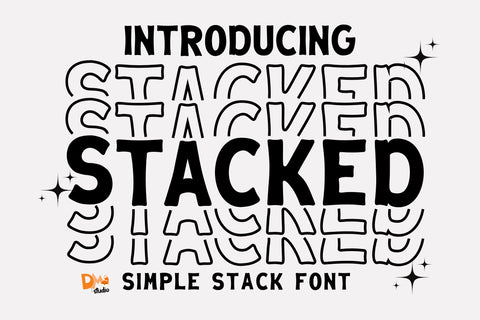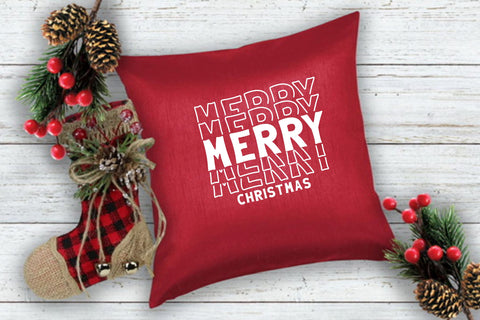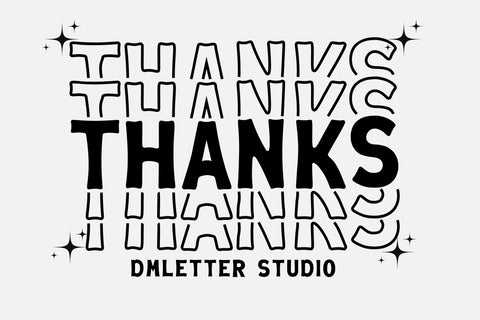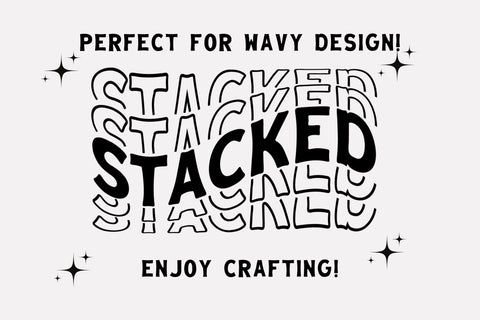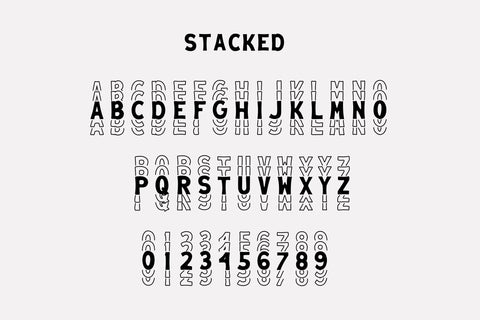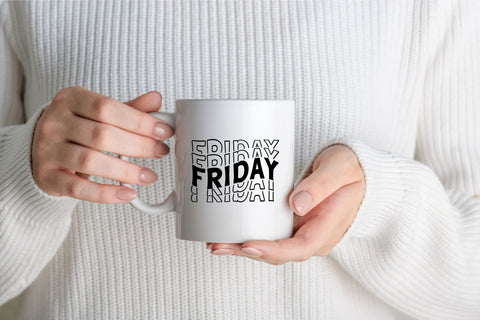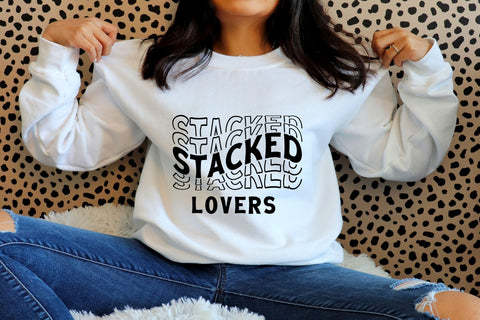
Stacked Font
Stacked Font is a bold, playful, and eye-catching display typeface that brings a fresh and dynamic look to your designs. With its unique stacked lettering style, this font adds depth, fun, and creativity to any project. Ideal for headlines, posters, logos, children’s designs, packaging, and social media graphics, Stacked Font effortlessly captures attention and stands out from the crowd. Whether you're working on creative branding or playful visual content, this font is designed to make your message pop!
- Unique Stacked Design: Creates bold and dynamic typography with layered letter effects.
- Playful and Versatile: Perfect for posters, logos, titles, banners, packaging, and more.
- High-Impact Display Font: Makes any text stand out with its fun and energetic style.